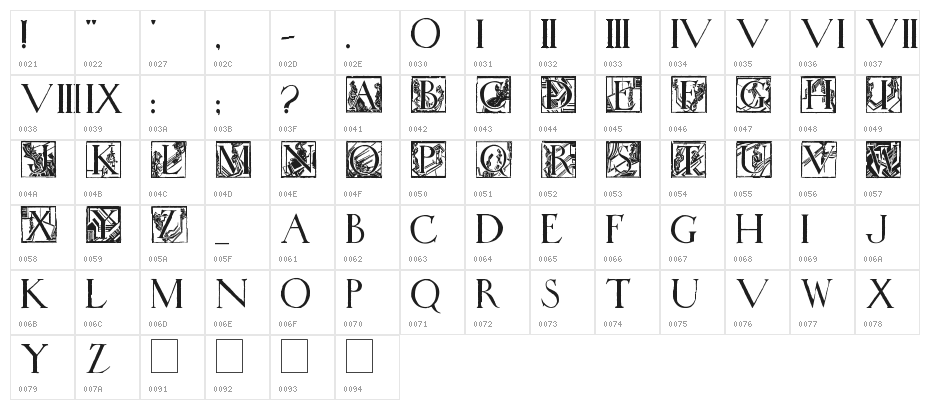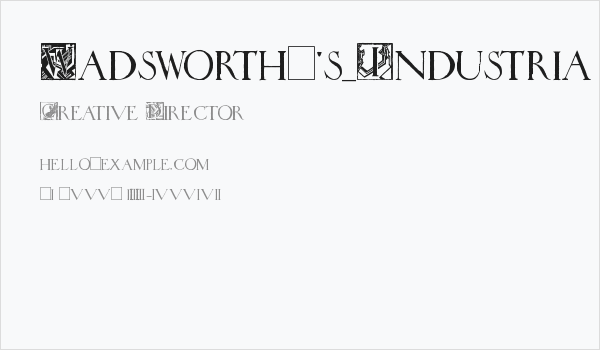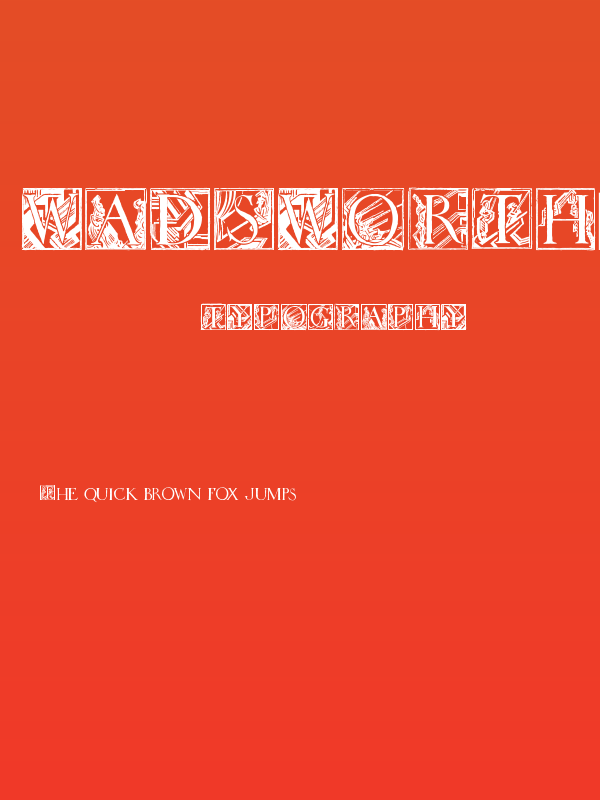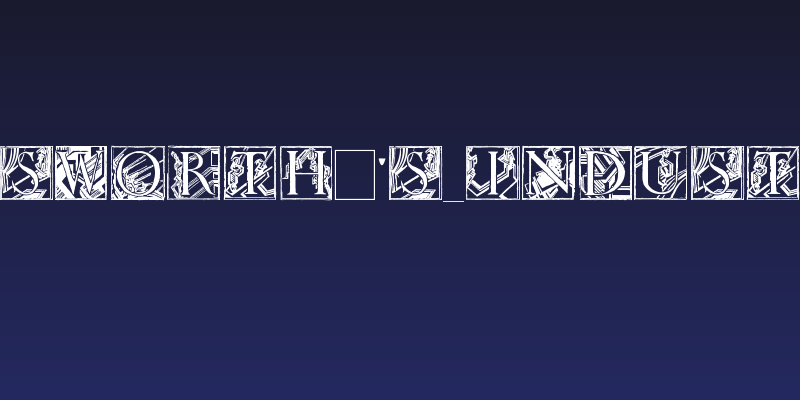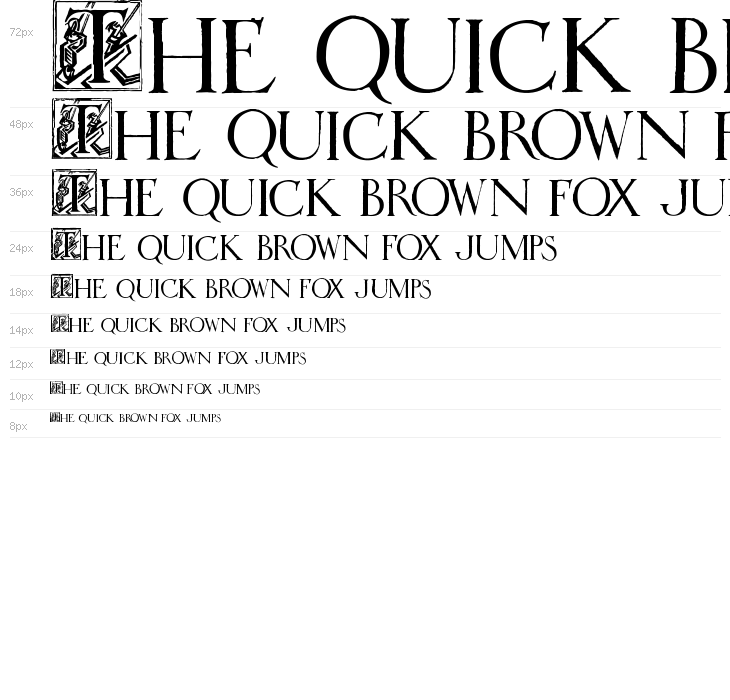
Wadsworth's_Industria Font
Wadsworth's_Industria Description
This font features a unique blend of decorative and classic elements, with uppercase letters that are intricately designed with artistic embellishments. The characters are enclosed in square frames, adding a distinct ornamental touch. The font showcases a high level of detail, making it suitable for projects that require a sophisticated and artistic appearance. The overall style is reminiscent of vintage and classical typography, with a modern twist. The characters are well-proportioned, with a medium contrast in stroke thickness, giving them a balanced and elegant look.
| Overall Style | Vintage, Decorative |
| Proposed Projects | Ideal for decorative projects, vintage-themed designs, artistic posters, and elegant invitations. |